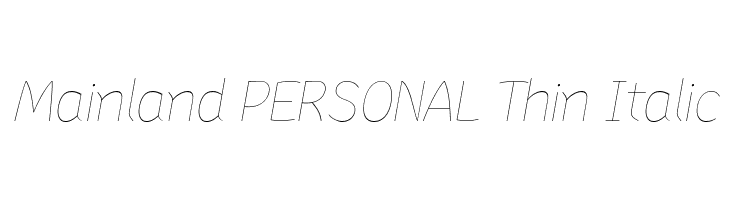
A thin, italic font with a modern, minimalist design.
A bold, italicized font with a gradient effect created by horizontal lines.
An elegant script font with flowing, cursive letterforms and ornate details.
A bold, geometric font with decorative octagonal frames around each character.
A bold, italicized script font with a dynamic, hand-drawn style.
A bold, 3D italic font with a modern, outlined design.
A bold, dynamic script font with a calligraphic style.
A bold, italicized font with a dynamic and impactful style.
A bold, handwritten-style font with dynamic, slanted characters.
A playful, bubbly font with a hand-drawn, whimsical style.